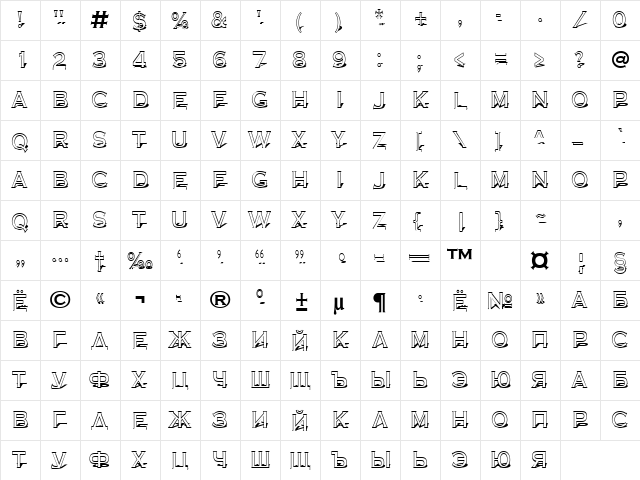
a_CopperGothTitul3D Normal
Design Context for a_CopperGothTitul3D Typeface
a_CopperGothTitul3D takes a measured approach to typography — its balanced proportions and neutral character make it a reliable workhorse for both digital and print work.